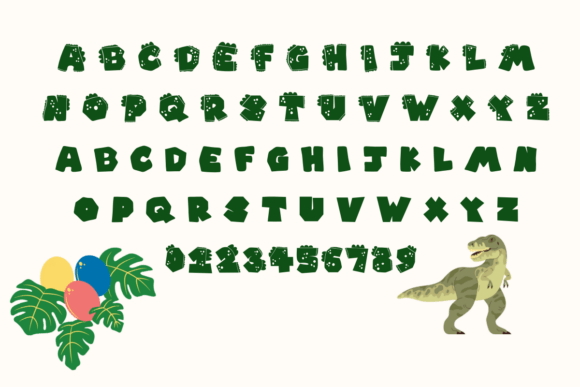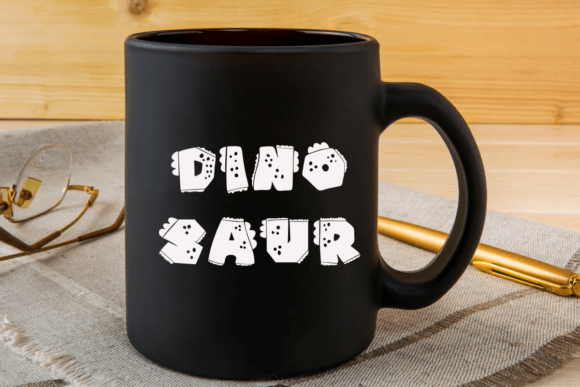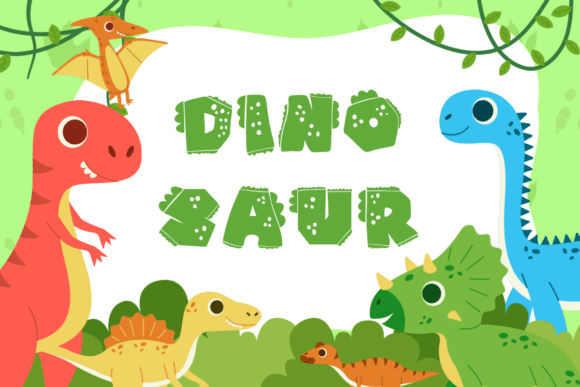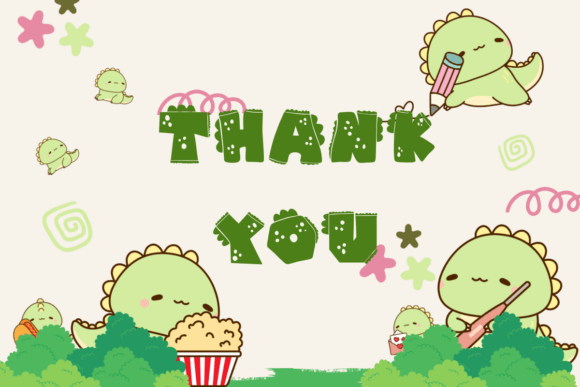
Unleashing the Roar of Creativity: Dinosaur Font
Remember the moment you first discovered a font that made your design come alive? For some of us, it’s that perfect sans-serif for a modern feel, or a elegant script for a touch of sophistication. But for kids and kids-at-heart, it’s the Dinosaur Font – a playful typeface that’s about to take your designs on a prehistoric adventure!
With its chunky, irregular letterforms adorned with dinosaur scales, spikes, and footprints, the Dinosaur Font is the perfect addition to any dino-themed project. Whether you’re designing a children’s book, creating party invitations, or developing classroom materials, this font brings a Jurassic joy to your design work. As a designer, you’ll appreciate the versatility of the Dinosaur Font – its vibrant and eye-catching style is sure to make your projects roar with excitement.
Dinosaur Font Key Features
- Font Family: Dinosaur Font is a custom-designed font family.
- Unique Characteristics: Features prehistoric-inspired illustrations and intricate details, making it a unique addition to any font collection.
Dinosaur Font Review
Overall, I have mixed feelings about the Dinosaur Font. On one hand, it’s ✨ bold, fun, and playful. It immediately grabs your attention and can add a touch of whimsy to any design project. The unique shape of the letters and the quirky details make it stand out from other sans-serif fonts.
The font also works well in ✨ large text sizes, making it perfect for headlines, titles, and headings. The bold weight is particularly effective in grabbing attention and creating a sense of drama. Additionally, the font is ✨ highly customizable, allowing you to adjust the font size, line height, and color to suit your design needs.
Limitsations
However, I do have a few concerns with the Dinosaur Font. Here are some limitations I’ve encountered:
- ⚠️ The font can be difficult to read in smaller text sizes, making it less suitable for body text or paragraphs.
- ⚠️ The font may not be suitable for formal or professional designs, as it can come across as too playful or childish.
- ⚠️ The font may not be compatible with all operating systems or devices, which could lead to inconsistencies in font rendering.
While the Dinosaur Font has its limitations, I think it’s a great addition to any designer’s toolkit. With careful use and consideration, it can add a unique touch to your designs and help you stand out from the crowd. Just be sure to use it sparingly and in contexts where its playful nature will shine through.
Tip: Use the Dinosaur Font for creative projects like invitations, posters, or social media graphics.
Tip: Use the Dinosaur Font for designing logos, branding materials, or educational content.
Tip: Use the Dinosaur Font for presentations, reports, or educational materials.
The Dinosaur Font is perfect for:
- Creative projects like invitations, posters, or social media graphics.
- Designing logos, branding materials, or educational content.
- Presentations, reports, or educational materials.
Remember to use the Dinosaur Font in a way that is consistent with your
Alternative Fonts to Dinosaur Font
Great Vibes is a beautiful, cursive script font that can be used for titles, headings, and quotes. It’s ideal for creating a whimsical and elegant look. Great Vibes is similar to Dinosaur Font in terms of its cursive nature, but it’s more refined and sophisticated.
Comparison: Great Vibes is more elegant and refined compared to Dinosaur Font, which has a more playful and casual feel.
Carolyna Pro is a modern, elegant script font that’s perfect for titles, headings, and body text. It’s ideal for creating a luxurious and high-end look. Carolyna Pro is similar to Dinosaur Font in terms of its cursive nature, but it’s more sophisticated and polished.